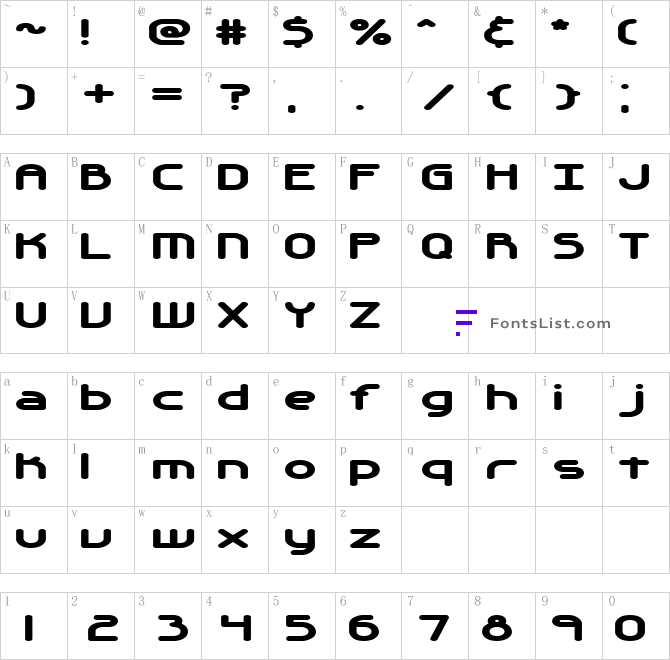
- Font Name:Automatica BRK
Automatica-BRK.ttf is a very beautiful artistic font, Automatica-BRK.ttf is widely used in the design and printing of various books and pictures,Automatica-BRK.ttf has a strong visual impact,Automatica-BRK.ttf is a commonly used font in newspapers, magazines and books, and is used in posters, e-commerce Poster design, store design, logo design, font design and other fields.Automatica-BRK.